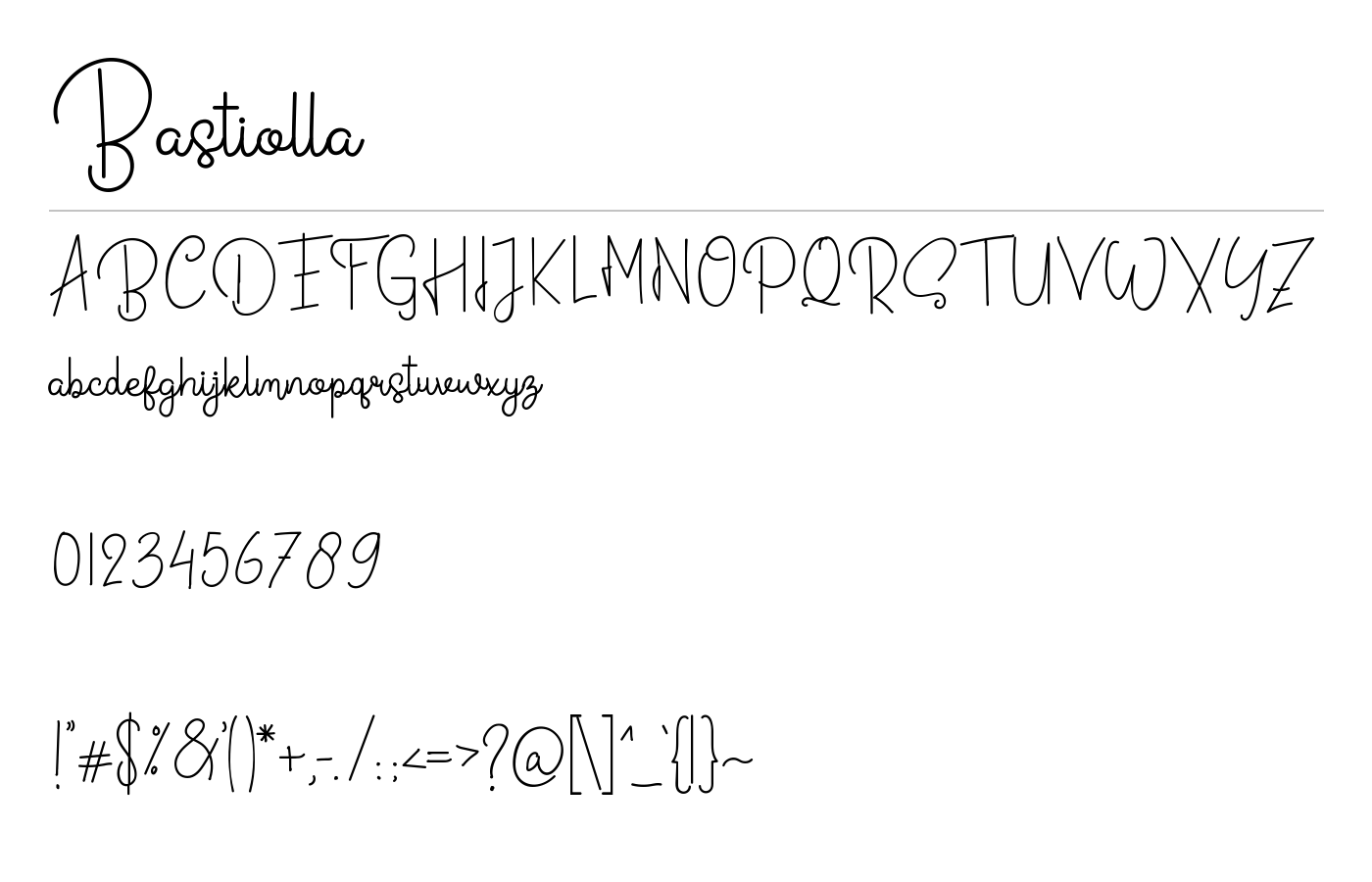
Bastiolla is a delicate, handwritten script font with a playful and airy feel, characterized by slender, slightly irregular strokes and whimsical letter shapes. Its tall x-height and narrow width make it ideal for adding a charming, personal touch to invitations, branding, and creative headlines where a light, casual elegance is desired. This font works beautifully when you want to convey friendliness and uniqueness without sacrificing readability.
Bastiolla Font
About Bastiolla Font